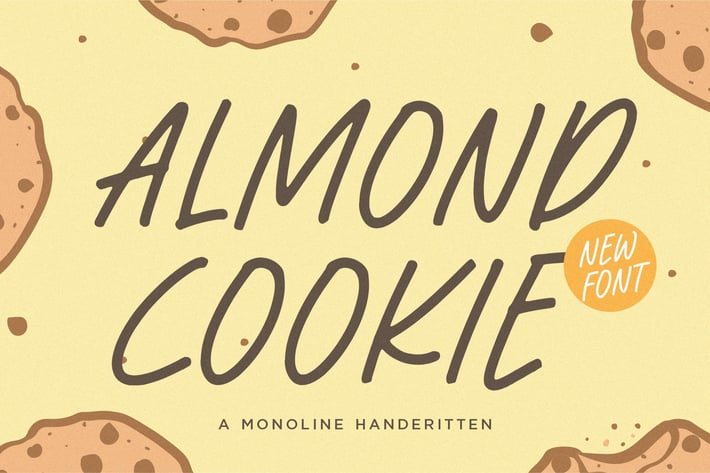
Almond Cookie - A Monoline Logo Font
Almond Cookie - a Monoline Handwritten Font that's clean, elegant and perfect for a range of design projects! With its smooth, effortless lines and understated sophistication, this font is the perfect choice for those who want a modern look that's still timeless in its appeal.
Crafted with precision and care, this font is incredibly versatile and can be used for a range of design projects, including logos, branding, invitations, packaging, and more. With its simple yet refined aesthetic, it's sure to make a lasting impression on anyone who sees it.
also multilingual support